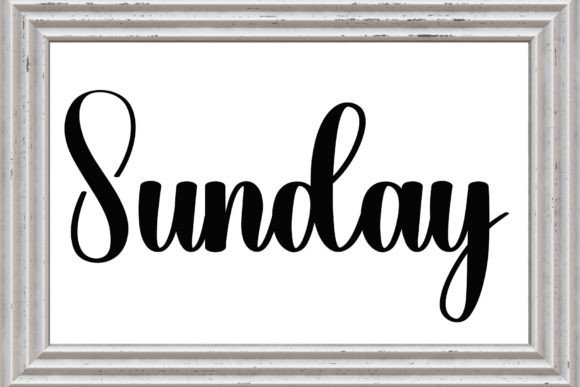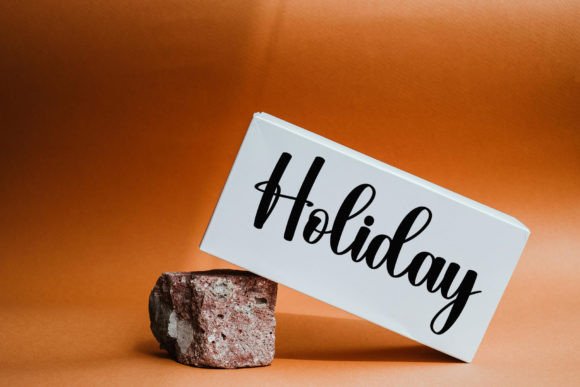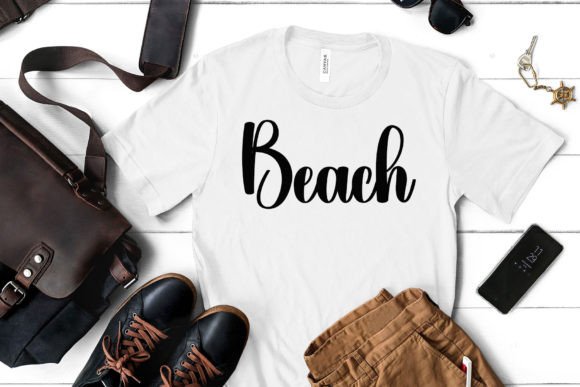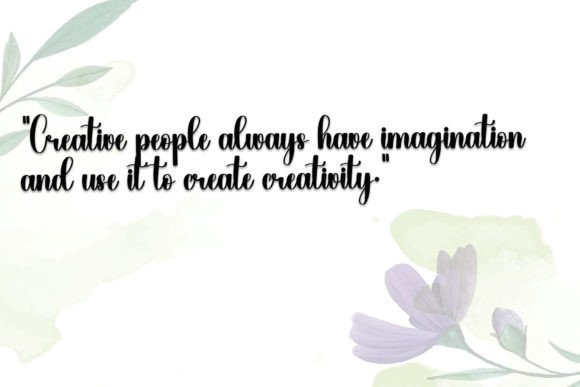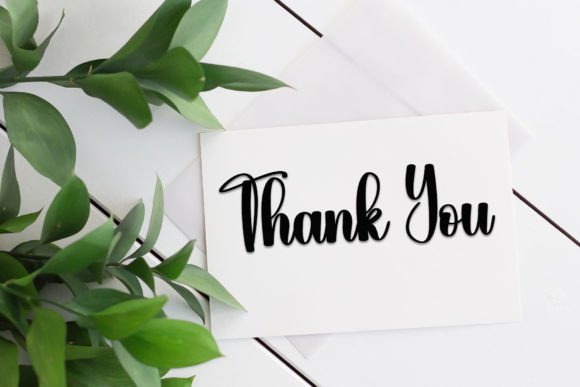
Discover the Magic of Cauldron Font
There’s nothing quite like the thrill of a late-night design session, surrounded by scribbled notes and half-finished ideas. As you search for the perfect font to bring your project to life, you stumble upon Cauldron Font – a beautiful, handwritten font that’s as elegant as it is unique. Its timeless style is sure to captivate your audience and leave a lasting impression.
Cauldron Font is the perfect addition to any designer’s toolkit. With its distinct character and versatility, it’s ideal for a wide range of projects, from invitations and greeting cards to social media graphics and marketing materials. Whether you’re a seasoned pro or just starting out, Cauldron Font is a valuable resource that’s sure to inspire your creativity and help you take your designs to the next level.
Cauldron Font Key Features
- Font Family: Cauldron Font is a unique, hand-drawn font designed to evoke a sense of mysticism and magic.
- Character Count: The font contains a wide range of characters, including uppercase and lowercase letters, numbers, and punctuation marks.
- Size: The font is available in multiple sizes, ranging from 8 points to 72 points, making it suitable for various design applications.
- Resolution: The font is designed to be high-resolution, ensuring that it looks crisp and clear at both low and high resolutions.
- Unique Characteristics: The Cauldron Font features intricate, swirling patterns and ornate details that give it a distinct, mystical feel.
Cauldron Font Review
Overall, I think the Cauldron Font is a visually striking option for designers looking to add a touch of magic to their projects. ✨ Its unique, hand-crafted aesthetic makes it a standout choice for those seeking to create a sense of mysticism or whimsy.
- The Cauldron Font’s distinctive letterforms and flourishes create a sense of movement and energy, perfect for titles, headings, and other display typography.
- The font’s irregularities and imperfections add a touch of handmade charm, making it feel more organic and authentic.
- The font is highly customizable, allowing designers to fine-tune the spacing, size, and color to suit their project’s needs.
- The Cauldron Font can be difficult to read at smaller sizes due to its complex letterforms and tight spacing.
- The font may not be suitable for large blocks of body text, as its irregularities can make it hard on the eyes.
- The font’s customizability can also be a double-edged sword, as too many adjustments can make it look inconsistent or unpolished.
Overall, the Cauldron Font is a great choice for designers looking to add a touch of magic to their projects, but it may not be the best option for every project. With careful use and customization, it can be a real showstopper. ✨
Getting the Most Out of the Cauldron Font
To get the most out of the Cauldron Font, experiment with different font sizes, colors, and styles to create a unique look. Use the font in conjunction with other design elements, such as images or graphics, to add depth and interest to your design.
The Cauldron Font is perfect for designing spooky or mystical themes, such as Halloween decorations, witch-themed invitations, or fantasy book covers. It’s also great for adding a touch of whimsy to everyday designs, such as social media graphics or blog posts.
Alternatives to Cauldron Font
Playfair Display is a luxurious, high-end serif font ideal for creating elegant and sophisticated designs. It’s perfect for use in titles, headings, and other high-impact areas where a touch of luxury is desired. Playfair Display has a more refined and classic feel compared to Cauldron Font, which has a more rustic and mystical tone.
Pacifico is a beautiful, elegant script font that’s perfect for creating a warm and inviting atmosphere. It’s ideal for use in designs where a sense of relaxation and serenity is desired. Pacifico has a more refined and sophisticated feel compared to Cauldron Font, which has a more dramatic and mystical tone.
Yes, the Cauldron Font includes support for advanced typography features such as ligatures, contextual alternates, and stylistic sets. It also includes a wide range of language support, making it suitable for multilingual projects.